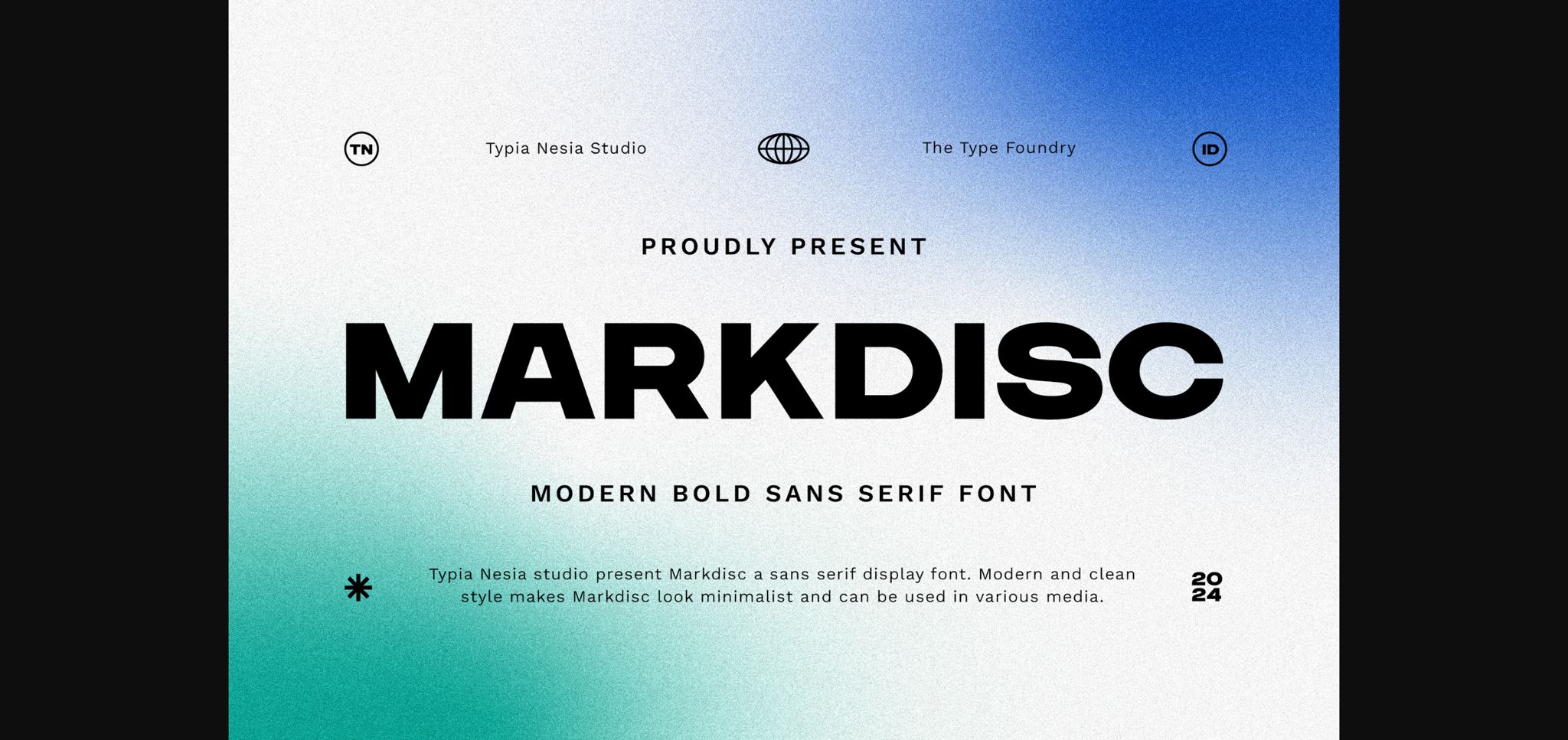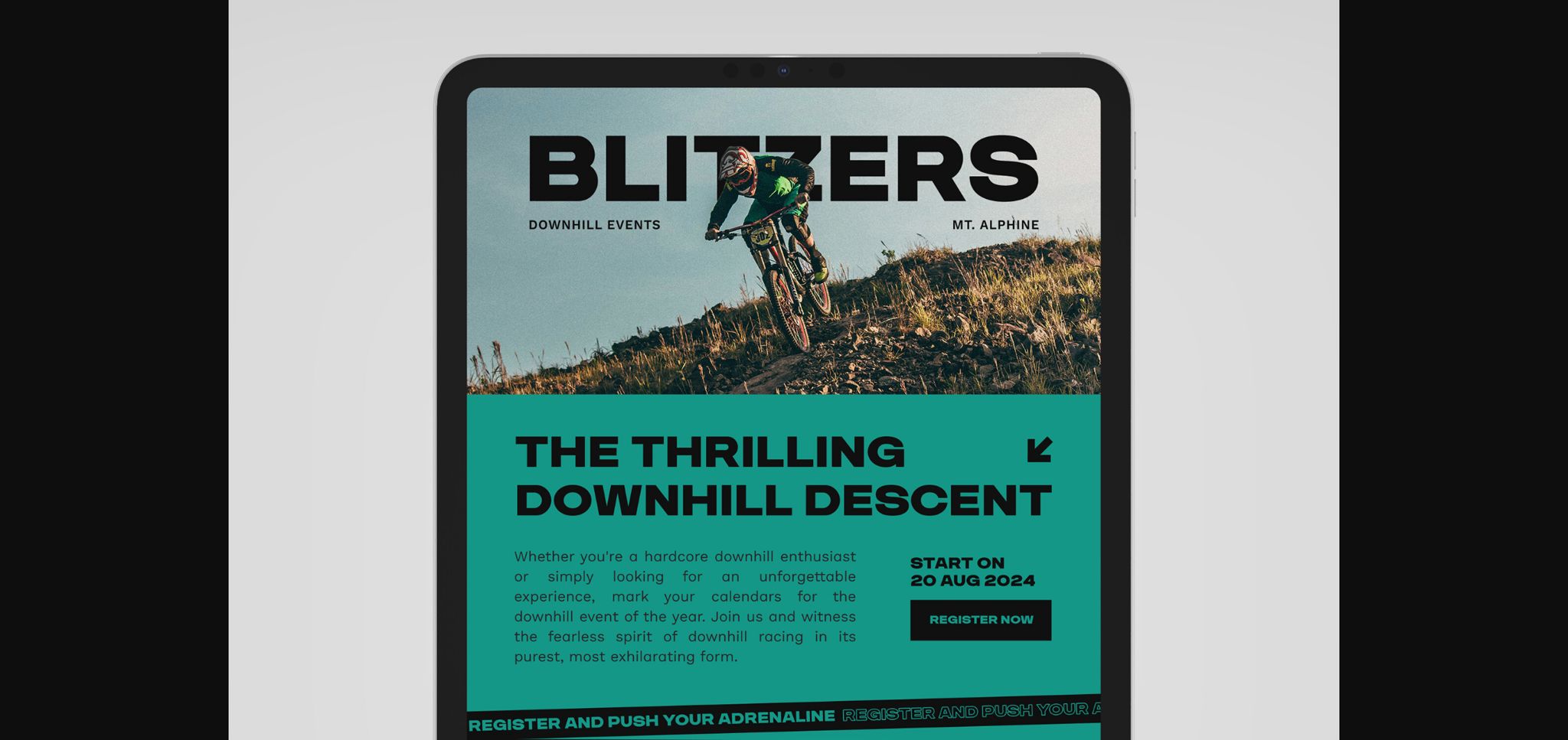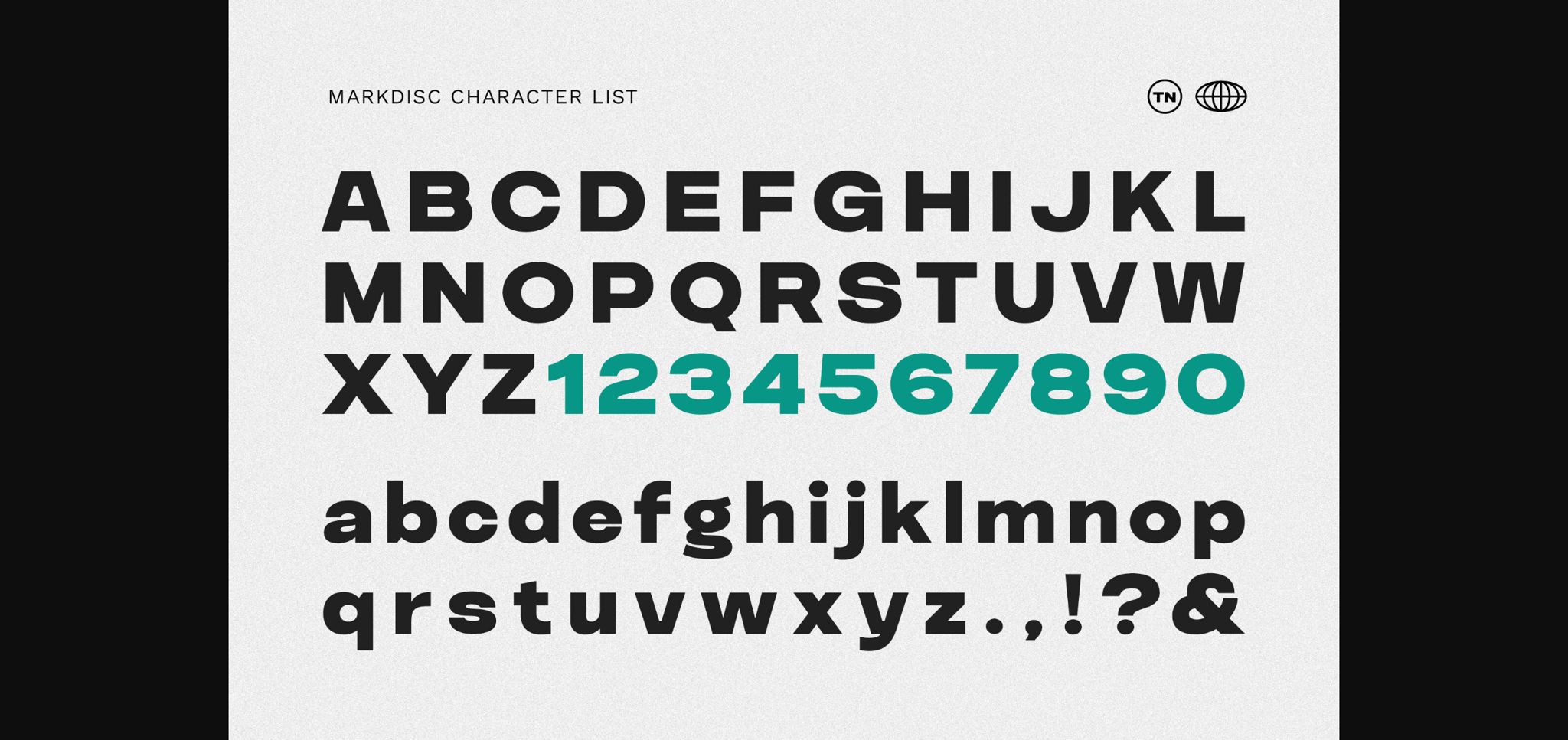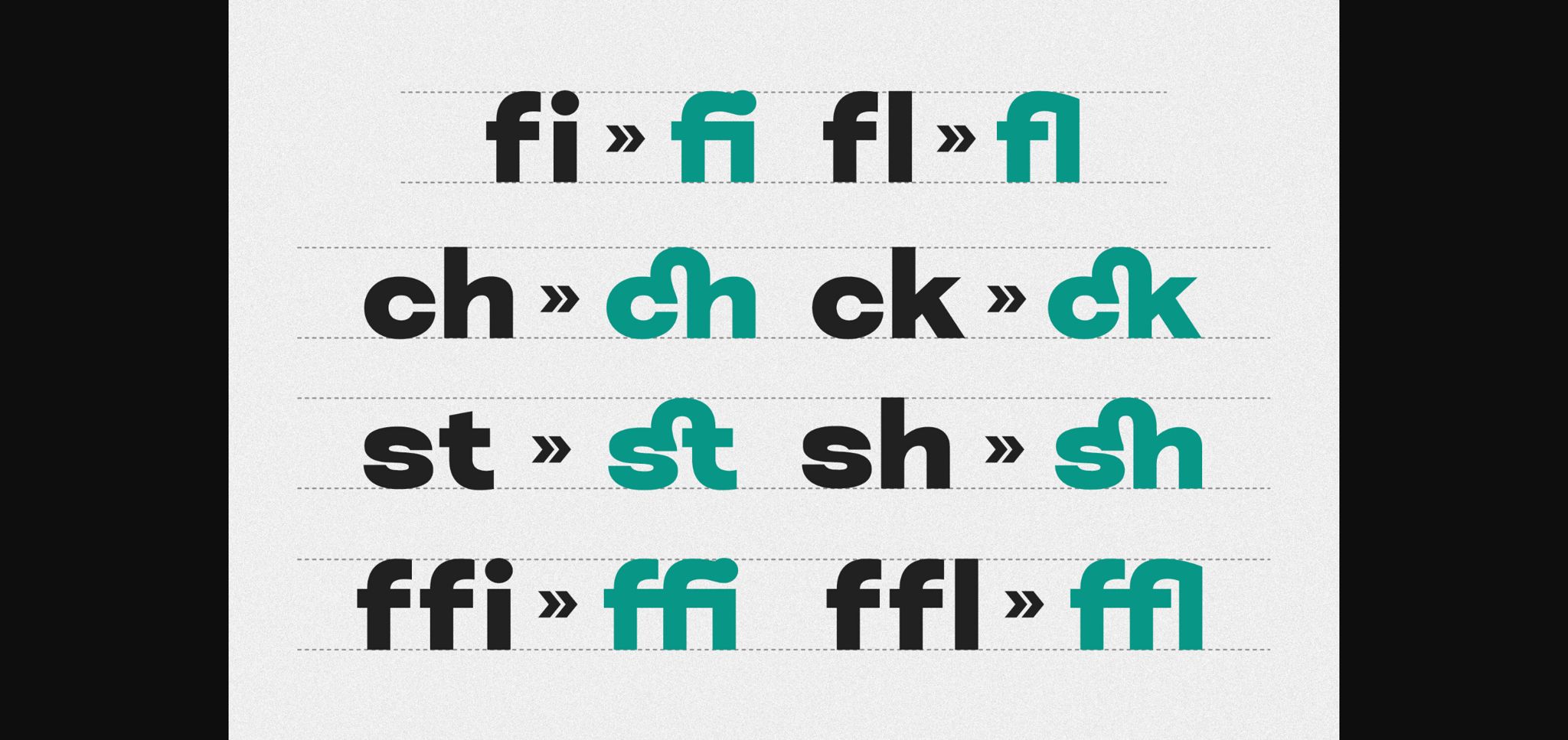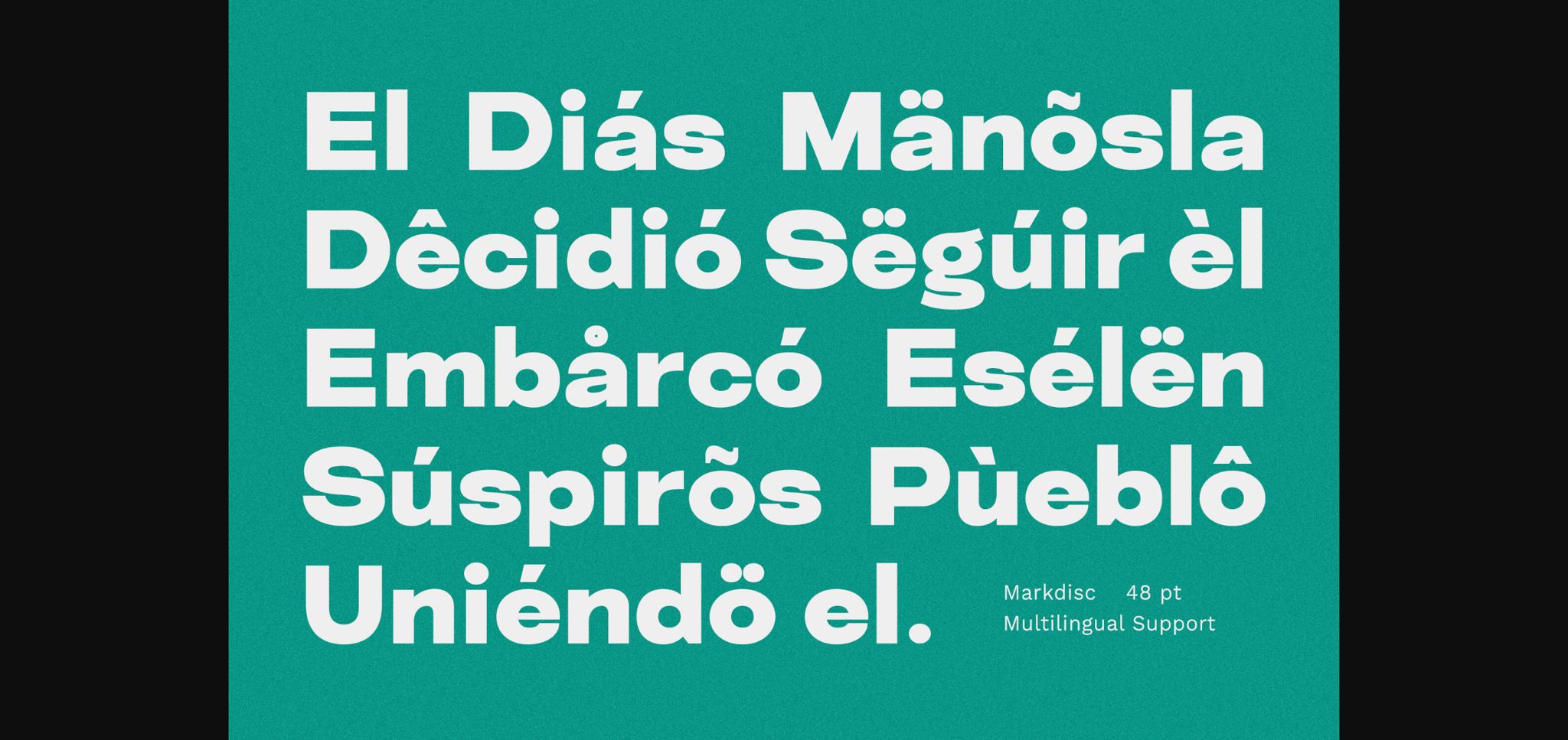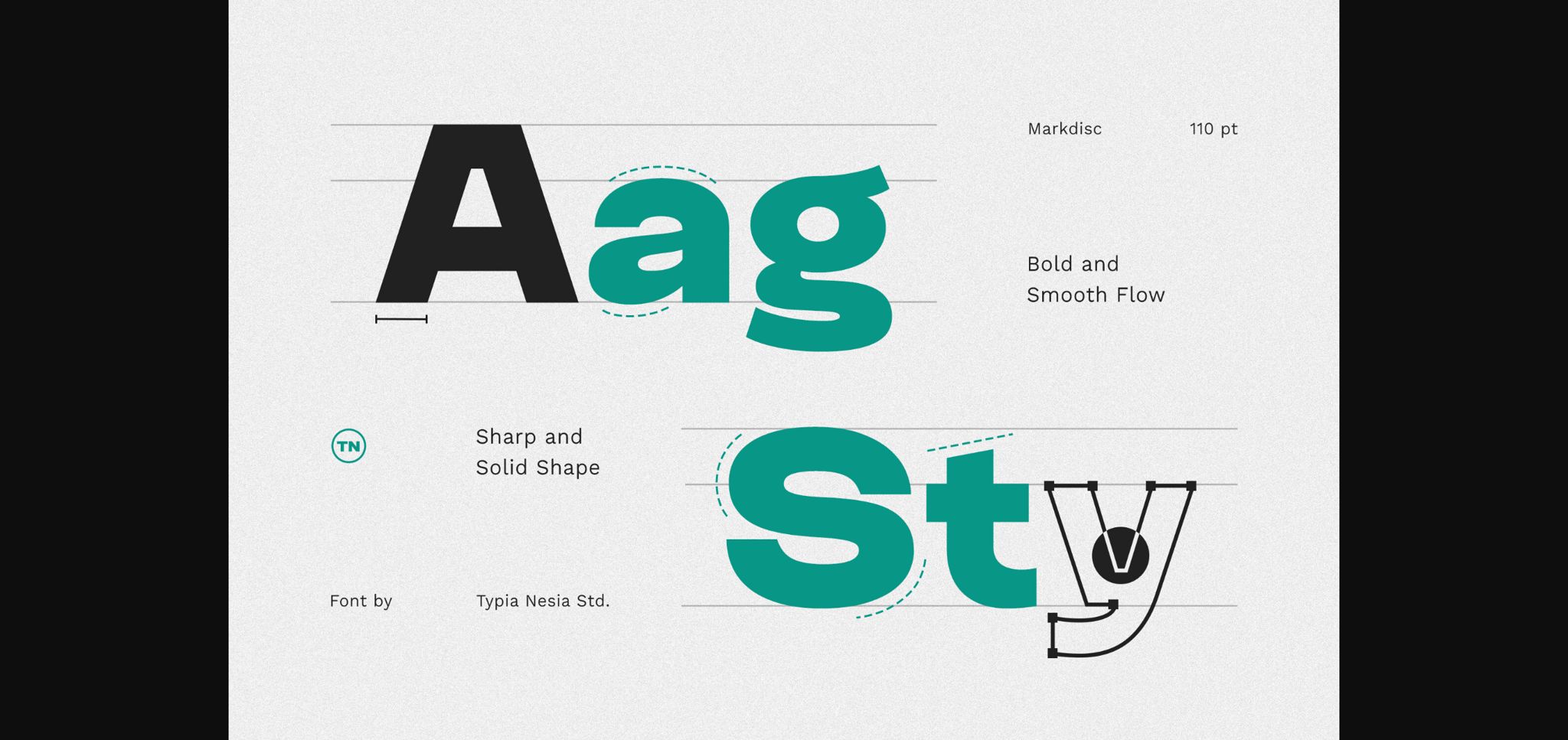
About Markdisc Font
Markdisc is a bold, casual sans-serif font exuding modernity and simplicity. Its clean lines and sturdy structure make it perfect for conveying a contemporary yet approachable feel. Whether for headlines, branding, or web design, Markdisc ensures clear communication with its straightforward and impactful typography.